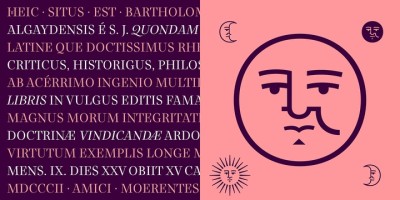
Step back in time with Ancient World Font Free Download, a typeface inspired by historical elegance and classical forms. This decorative serif font brings a timeless, old-world charm to your designs, making it ideal for museum branding, historical novels, themed event posters, educational materials, and vintage-style merchandise. Ancient World Font Free Download adds a refined, scholarly feel to any creative project.
The carefully crafted letterforms of Ancient World Font feature ornate details and balanced proportions that evoke the grandeur of ancient scripts and inscriptions. Whether you're designing book covers, logos, or editorial spreads, this font delivers a distinctive and cultured look that sets your work apart.